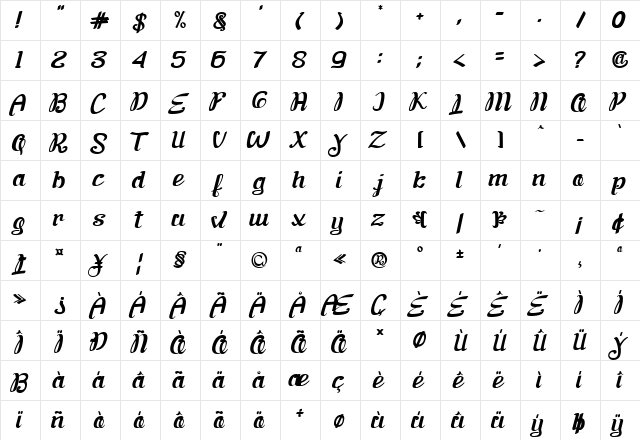
Flinellia Script
| Style | Script |
| Designer | Risa AW - Waton Std |
Design Context for Flinellia Typeface
Flinellia brings a calligraphic fluidity to the page — its connecting strokes and expressive curves give it an unmistakably human quality.
Font Pairing: Combine Flinellia with a simple geometric sans for maximum contrast — the tension between flowing curves and clean structure is a classic typographic pairing.
Pro Tip: Pair Flinellia with a clean sans-serif for supporting text. The contrast between fluid script and geometric structure creates an elegant typographic hierarchy.